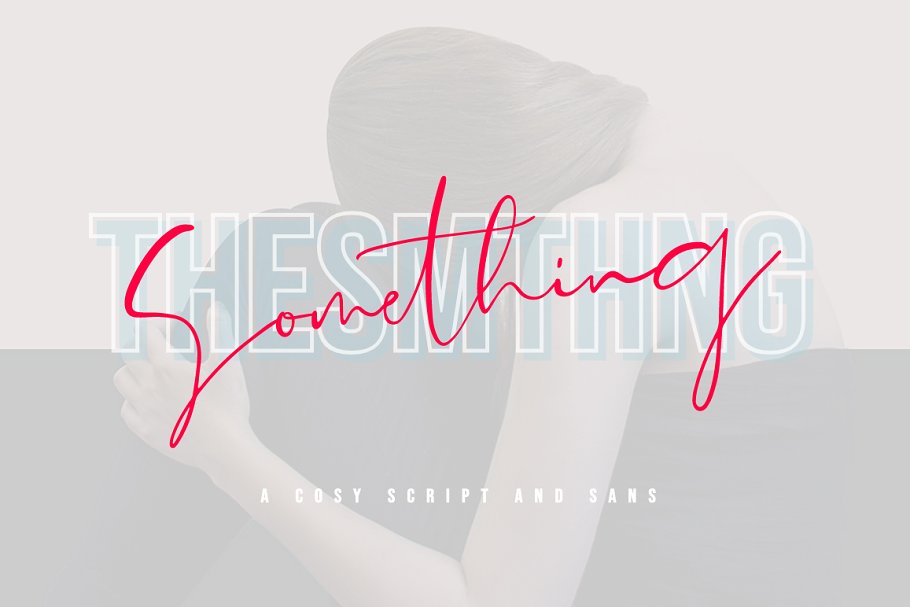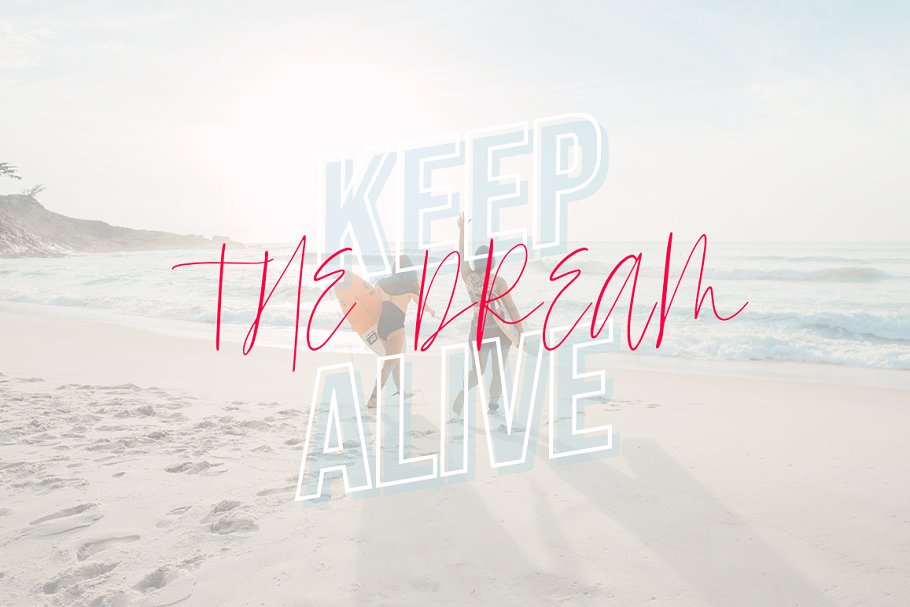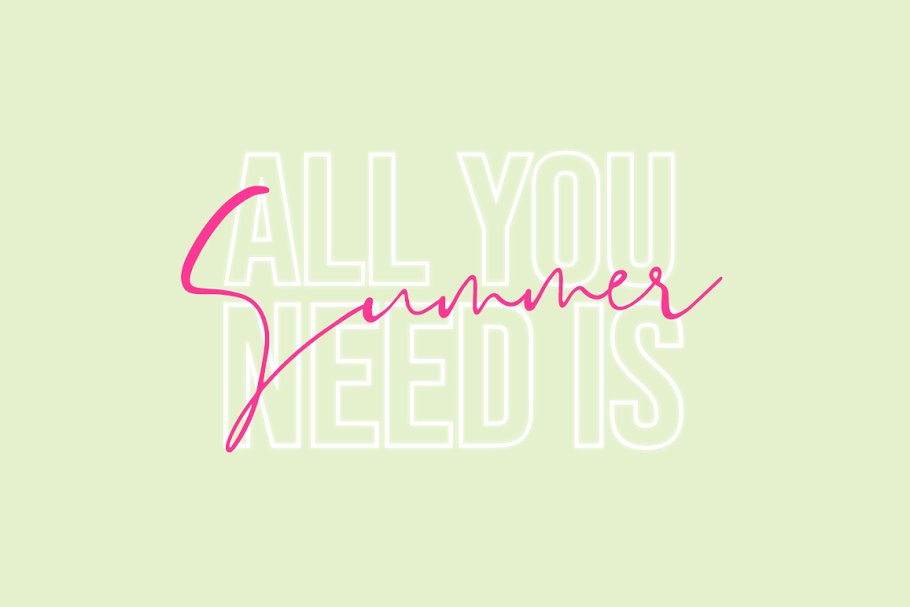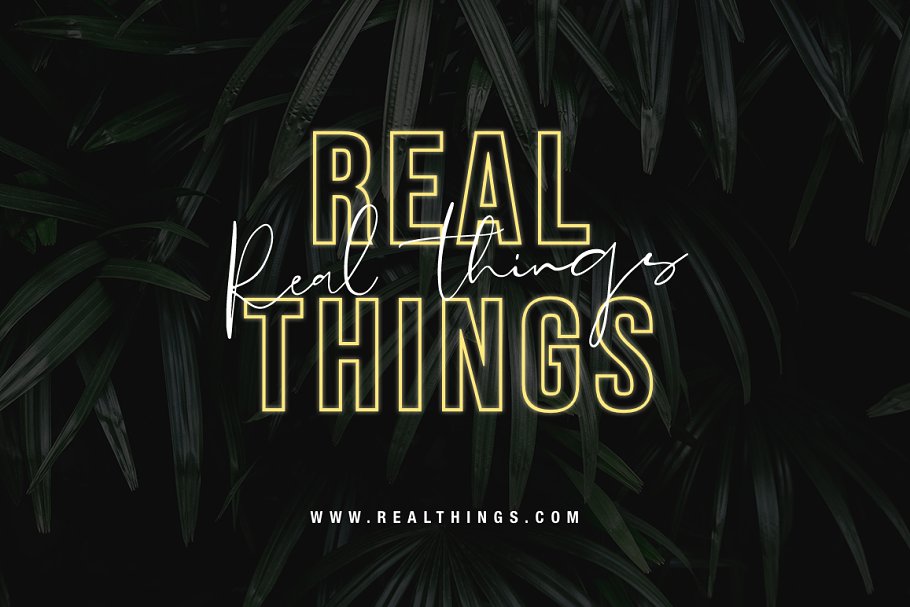
About the The Something DU Font
Introducing the elegant new The Something Font Duo! For those of you who are needing a touch of elegance and modernity for your designs, this font was created for you!What’s IncludedThe Something OTF / TTFThe Something SANS OTF / TTFDON’T MISS MY NEW BUNDLE – https://crmrkt, com/KbVGKl Check out my blog:https://www, instagram, com/superdizignerhttps://pinterest